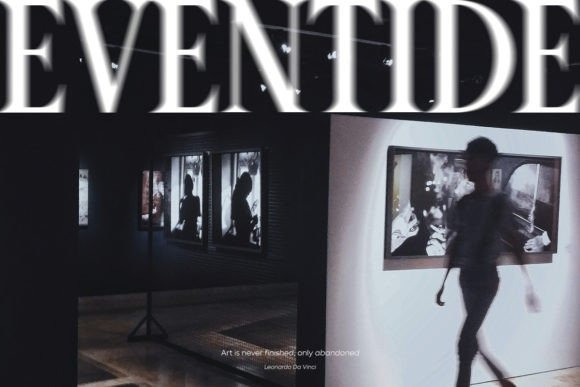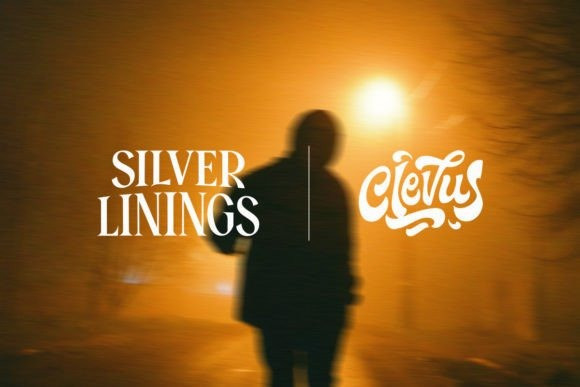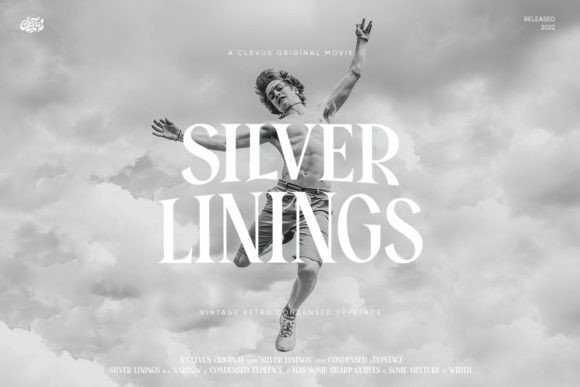
Silver Linings Font
Silver Linings Font – A classy eighties magazine inspired serif condensed – with a complementary lowercase version. In true Eighties style, they also come in varying degrees of Condensed form – mix and match them to create eye-catching effects.
Don’t forget to use all caps too in your mixing and matching – it adds contrast and impact to your type design.
Design tips! : Tighten your letterspacing for larger titles to create a range of looks.
Comes with alternatives and ligatures, and helps to create stunning magazine imagery, quotes, posts, blog posts, branding projects, logo, poster and much more.